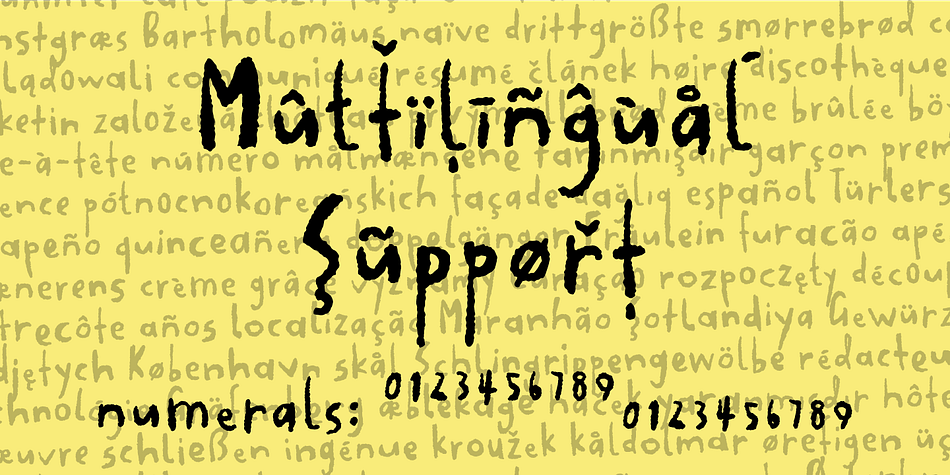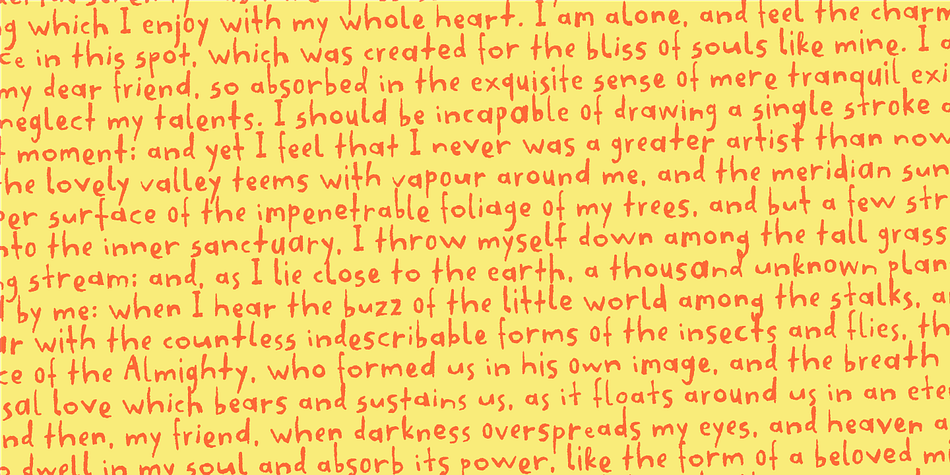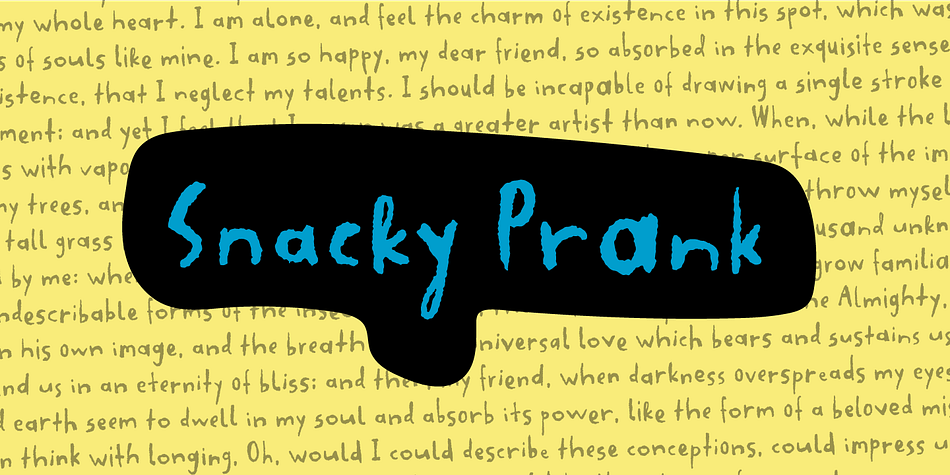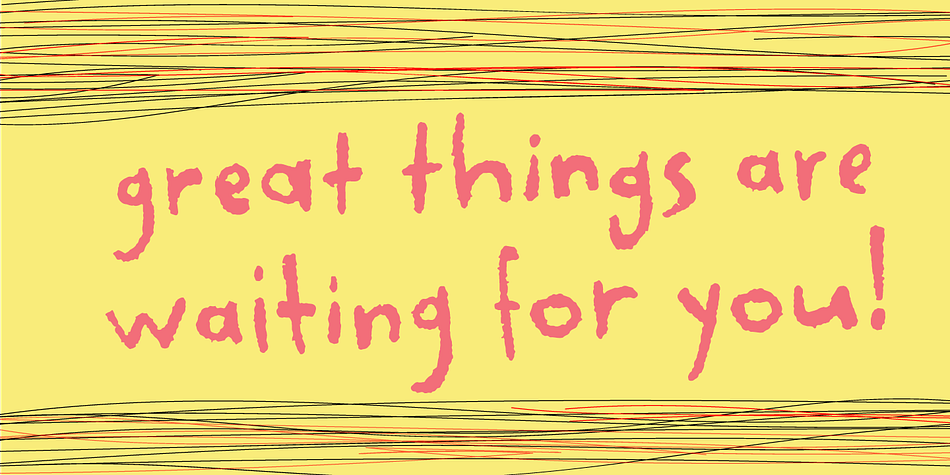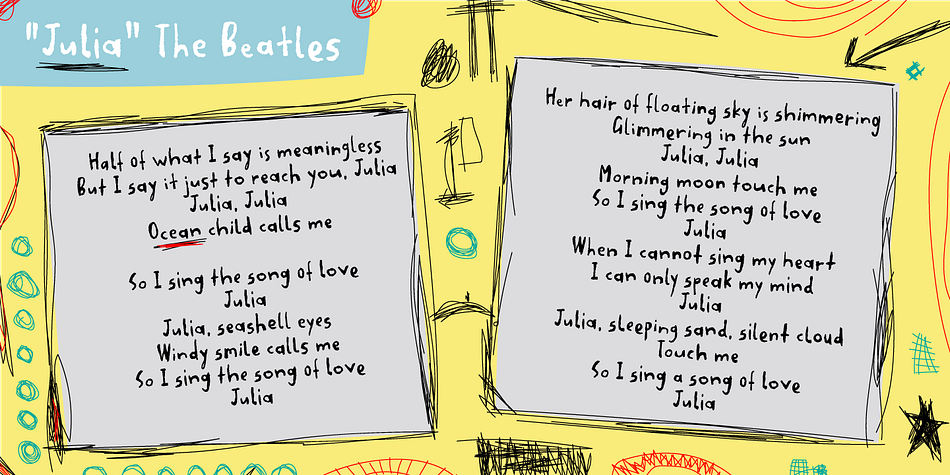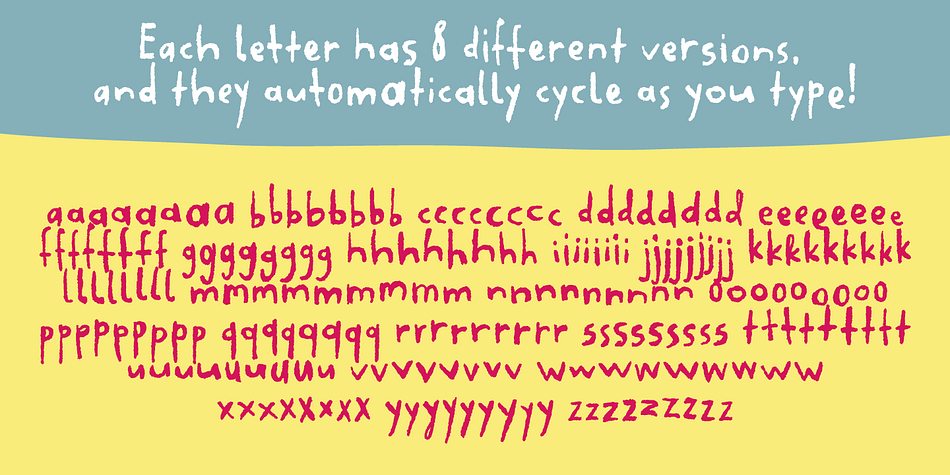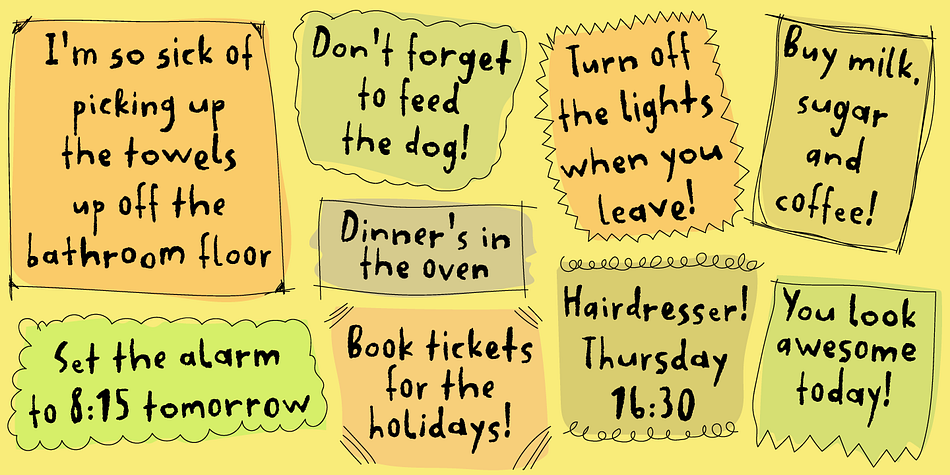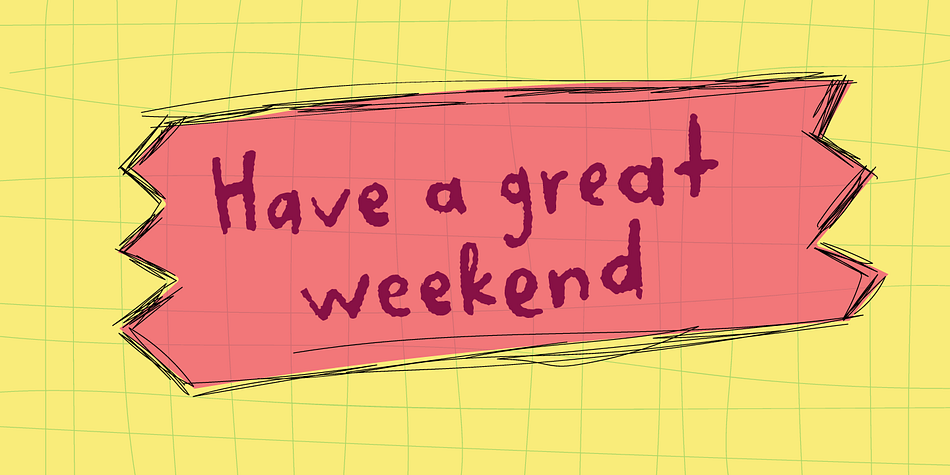
Snacky Prank
Designed by Jakob Fischer, Snacky Prank is a display sans and hand drawn font family. This typeface has two styles and was published by Pizzadude.dk.
If you need some authentic, organic and lively scribbled letters, you’ve come to the right place!
Snacky Prank is all that!
Comes with 8 different versions of each lowercase letter, and multilingual support!